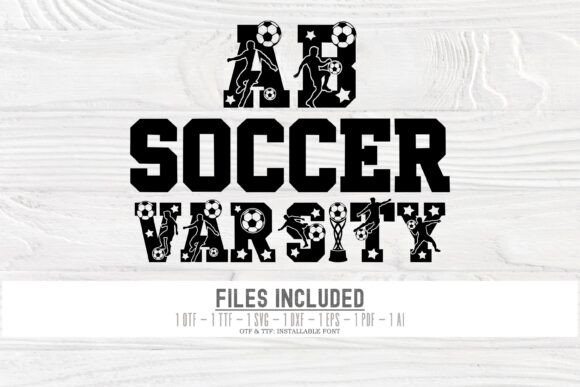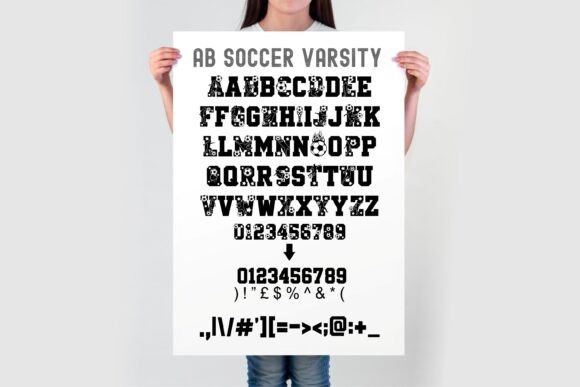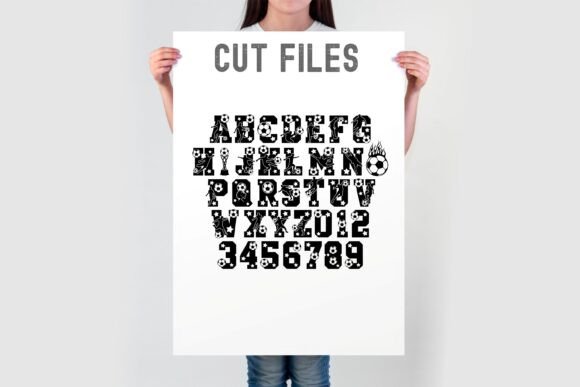
Ab Soccer Varsity Font: The Ultimate Font for Football Fans and Designers
Are you a football fan or a designer looking for a font that captures the essence of the beautiful game? Look no further than the Ab Soccer Varsity Font! This exciting font is a must-have for anyone who loves soccer, and it’s perfect for a wide range of design projects, from sportswear to invitations and team branding.
What Makes Ab Soccer Varsity Font So Special?
The Ab Soccer Varsity Font is a unique and stylish font that’s specifically designed to capture the passion and excitement of soccer. With bold uppercase and lowercase characters, numbers, and sports silhouettes, this font is perfect for creating eye-catching designs that will stand out from the crowd.
One of the things that sets the Ab Soccer Varsity Font apart is its versatility. Whether you’re designing a logo for a soccer team, creating a poster for a football match, or making custom sportswear, this font is the perfect choice. It’s also great for crafters who love to work with cutting machines like Cricut and Silhouette.
- Bold uppercase and lowercase characters, numbers, and sports silhouettes
This means that you’ll be able to use the font for a wide range of design projects, from digital designs to physical crafts.
Perfect for Sportswear, Invitations, and Team Branding
The Ab Soccer Varsity Font is perfect for a wide range of design projects, including:
- Sportswear: Create custom t-shirts, hoodies, and other sportswear items with bold, eye-catching designs
- Invitations: Design custom invitations for soccer matches, tournaments, and other football events
- Team branding: Create logos, jerseys, and other branding materials for soccer teams and clubs
With the Ab Soccer Varsity Font, you’ll be able to create professional-looking designs that will help you stand out from the competition.
Why Choose the Ab Soccer Varsity Font?
There are many reasons why the Ab Soccer Varsity Font is the perfect choice for football fans and designers. Here are just a few:
- Unique and stylish design that’s specifically tailored to soccer
- Versatile font that’s perfect for a wide range of design projects
- Perfect for sportswear, invitations, team branding, and more
Whether you’re a designer looking for a new font to add to your collection, or a football fan who wants to create custom designs, the Ab Soccer Varsity Font is the perfect choice.